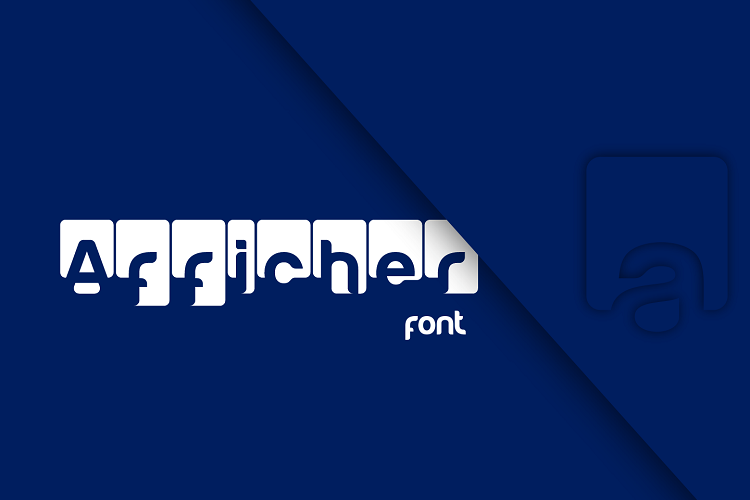
Afficher font
Afficher
Afficher this is a universal font, as individual letters can be used as a logo, and the font itself is suitable for events such as birthday, children's party, especially if the font is in multi-colored design.
Afficher font